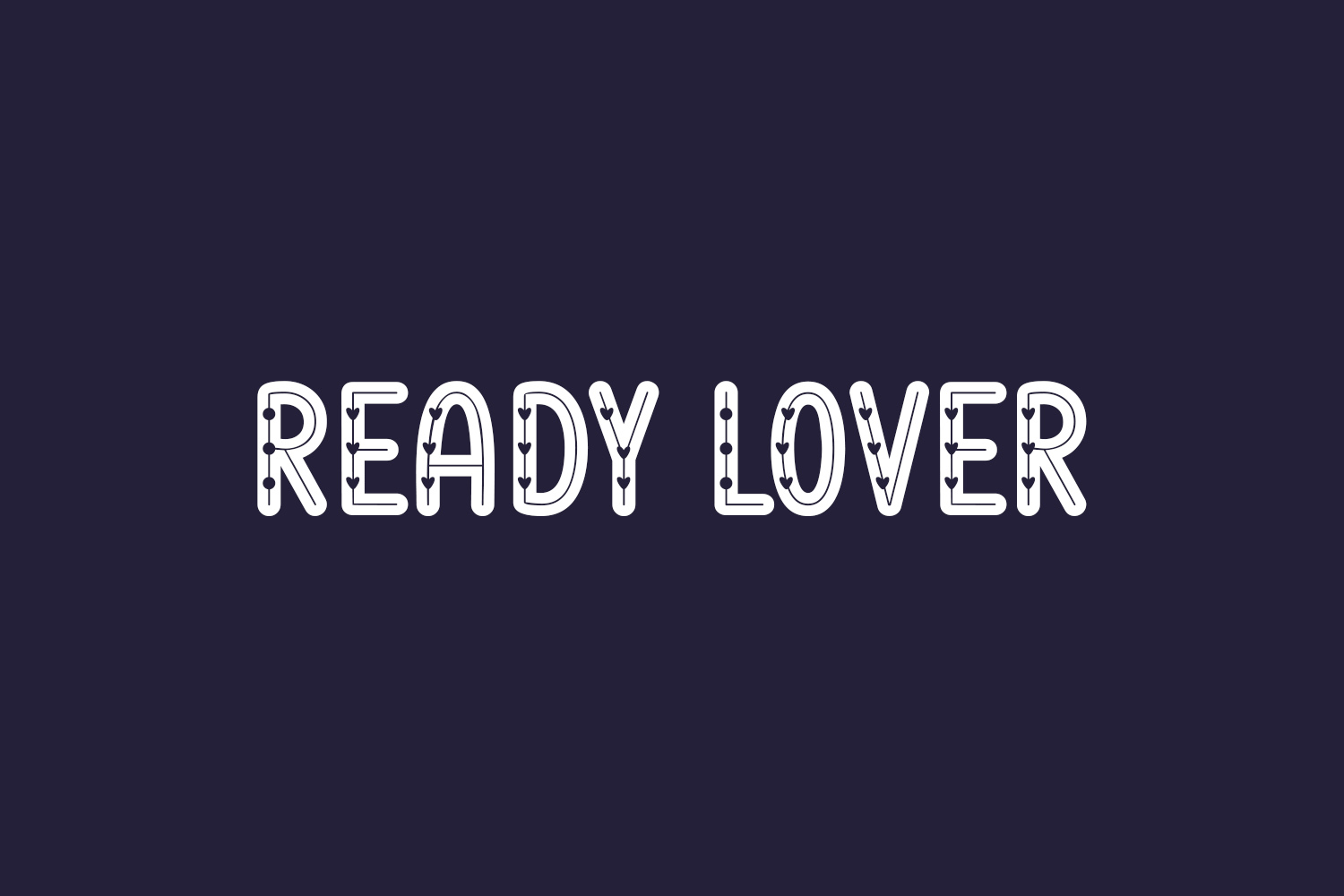
Ready Lover Free Font is a cool and lovely display font. Add it confidently to your favorite creations and let yourself be amazed by the outcome generated. Ready Lover Free Font was designed by 7NTypes and is free for personal use only. Please purchase the full version for commercial use.
Designed by 7NTypes